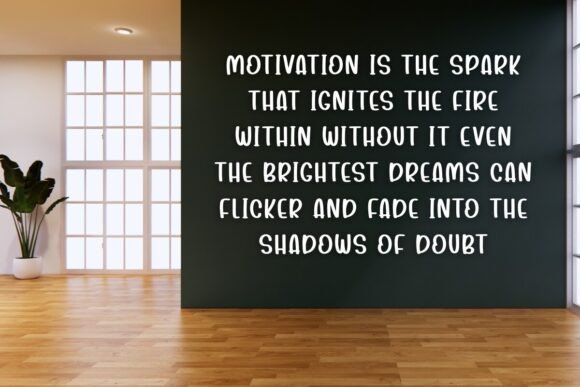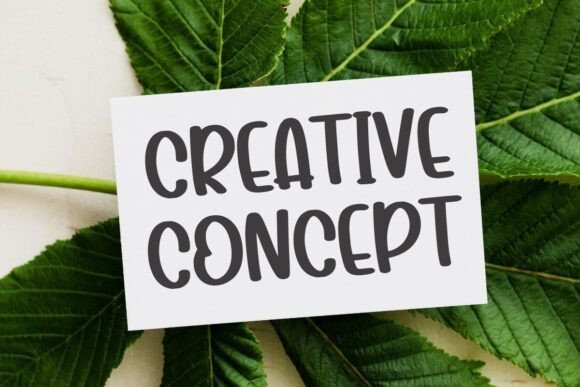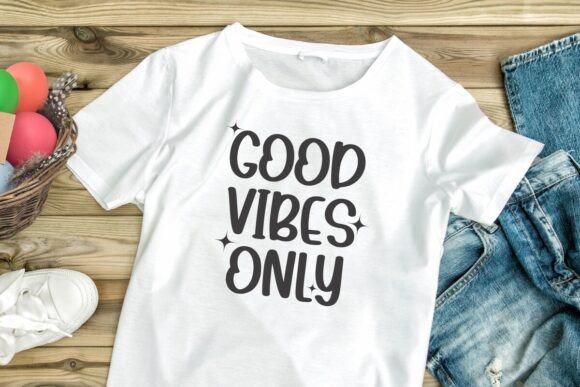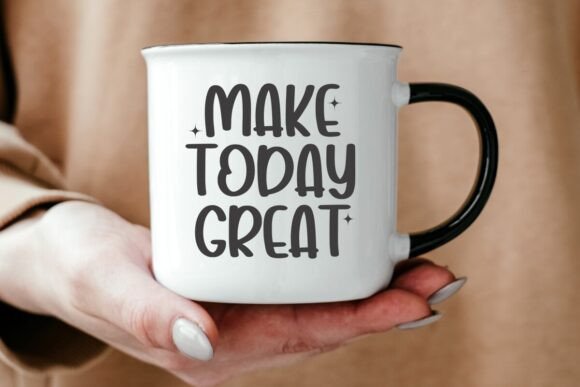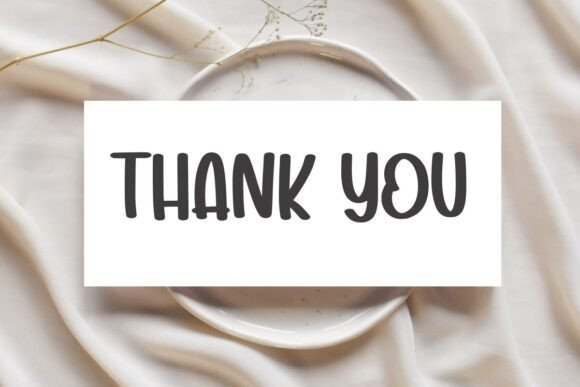
Introduction to Simple Cowboy Font
Do you remember that moment when a single font choice completely transformed your design project? For many of us, it’s a common experience that can make all the difference in bringing our creative vision to life. One such font that has captured the hearts of designers is the Simple Cowboy Font – a charming, bold display font that’s sure to add a touch of whimsy to any design.
As a valuable resource for designers, the Simple Cowboy Font offers a high-quality, free download option that’s perfect for any creative project. With its transparent background and unique style, it’s an excellent choice for designers looking to add some personality to their designs. Whether you’re working on a new logo, branding project, or simply want to spice up your social media graphics, the Simple Cowboy Font is an excellent design resource to have in your toolkit.
Key Features of Simple Cowboy Font
- High-quality design for creative projects and designs, available for free download.
- Unique, hand-drawn style with a simple and rustic feel, ideal for western-themed designs.
- Transparent background, making it easy to place over images or other design elements.
- Perfect design resource for those looking for a simple yet distinctive font for their creative project.
Honest Review: Simple Cowboy Font
I recently had the chance to work with the Simple Cowboy Font, and I must say it’s a great addition to any design resource collection. The font is a perfect blend of rustic charm and modern appeal, making it ideal for a wide range of creative projects.
One of the standout features of this font is its versatility. It’s perfect for designs that require a touch of nostalgia and authenticity. Whether you’re working on a branding project or creating a poster for a western-themed event, this font is sure to deliver.
Here are some of the things that work well with the Simple Cowboy Font:
- ✨ High-quality design with crisp and clear lines
- ✨ Perfect for projects that require a touch of rustic charm
- ✨ Easy to read and use, even for extended periods of time
- ⚠️ Limited character set, which may not be suitable for projects that require a wide range of characters
- ⚠️ May not be ideal for designs that require a transparent background, as the font can be quite bold
Overall, I’m impressed with the Simple Cowboy Font and would recommend it to anyone looking for a high-quality, rustic font for their creative projects.
For a transparent background, use the font on a dark-colored background to create a striking visual effect. Experiment with different font sizes and colors to add depth and interest to your design. You can also pair the Simple Cowboy Font with other fonts to create a unique and eye-catching design.
The Simple Cowboy Font is ideal for designing rustic-themed graphics, such as wedding invitations, outdoor advertisements, and country-inspired websites. Its high-quality design and transparent background make it a versatile design resource for a variety of creative projects.